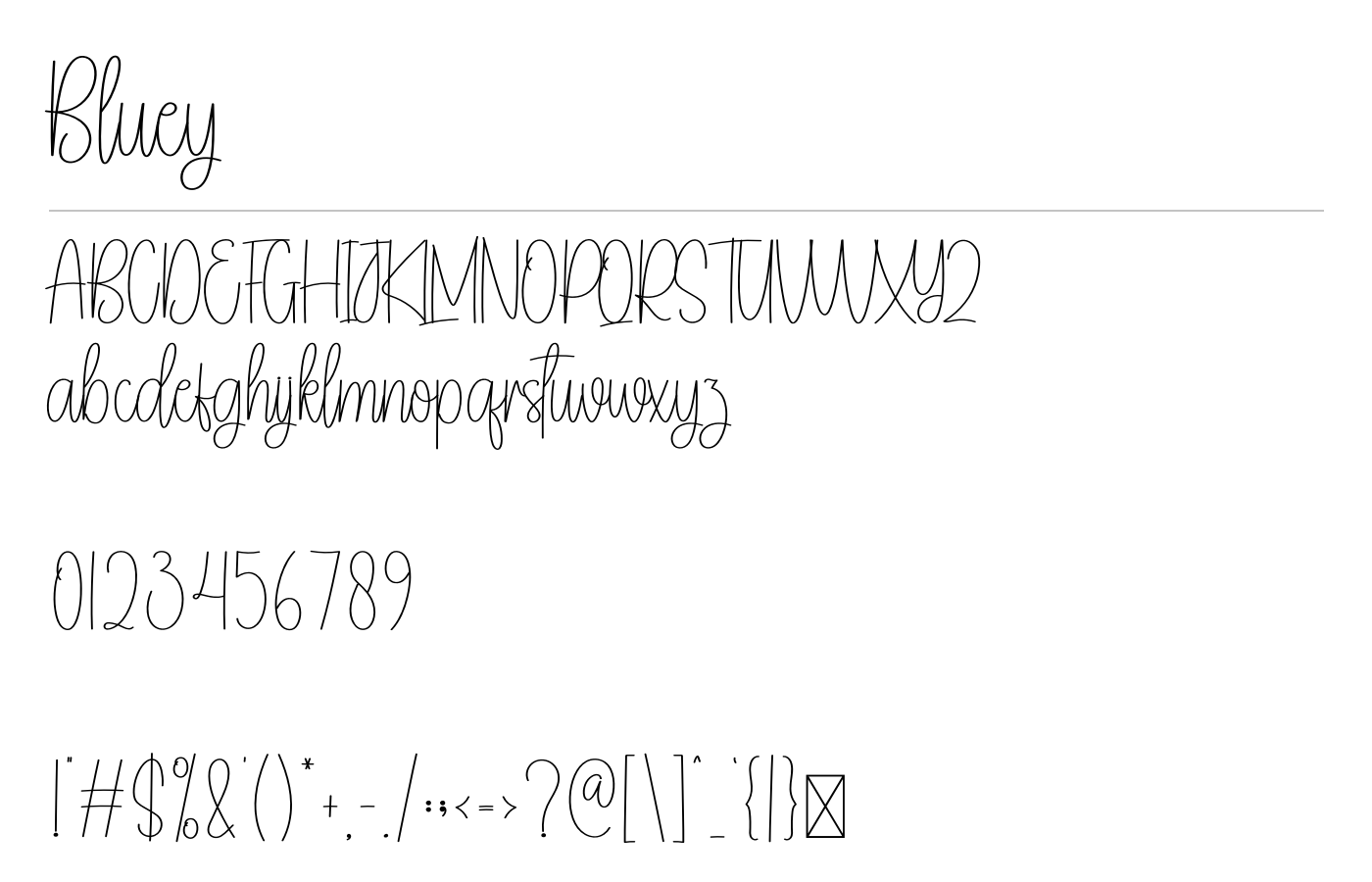
Bluey is a delicate, handwritten script font with a tall, narrow structure and a whimsical, airy feel. Its thin strokes and playful letterforms lend a friendly, casual personality, making it ideal for informal branding, invitations, or creative projects seeking a light, approachable touch. This font works beautifully where a personal, artistic expression is desired, especially in headlines and decorative uses.
Bluey Font